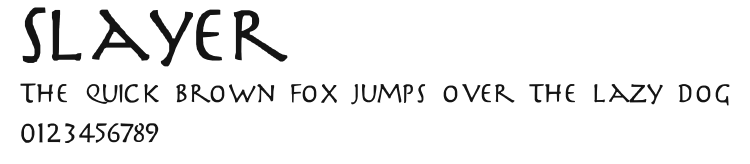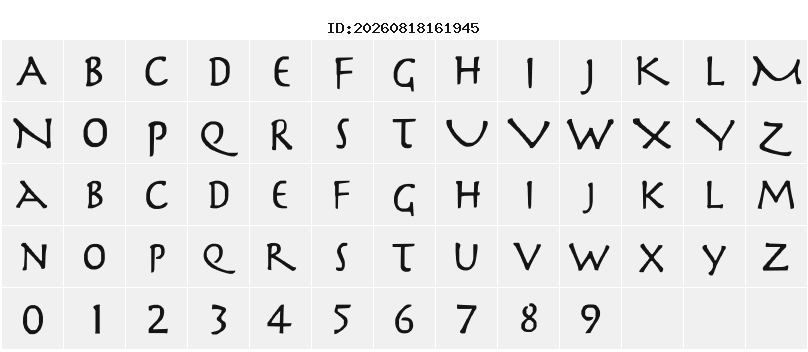
• Font Name: Slayer
• Designer: daBean
• Manufacturer: BuffySaver
• Description: Font used in Buffy the vampire slayer
About Slayer.ttf
Slayer.ttf is a modern, elegant sans-serif font designed for ultimate readability and visual harmony. Perfect for branding, headlines, web design, and print materials.